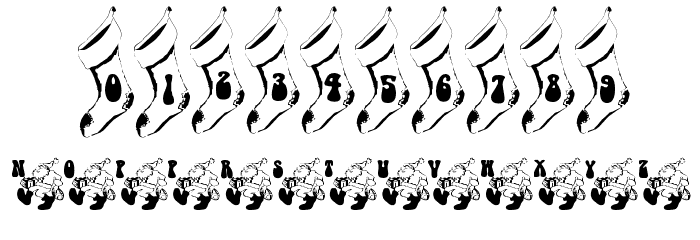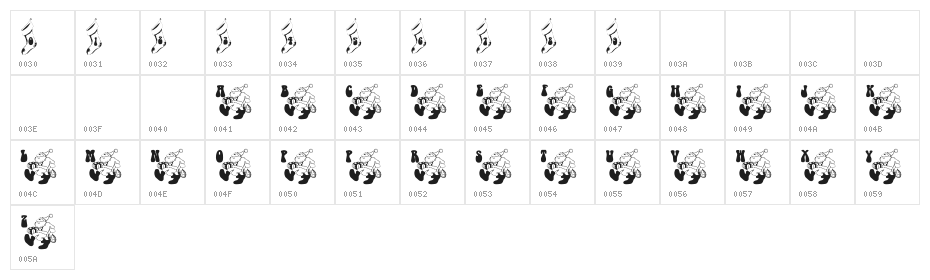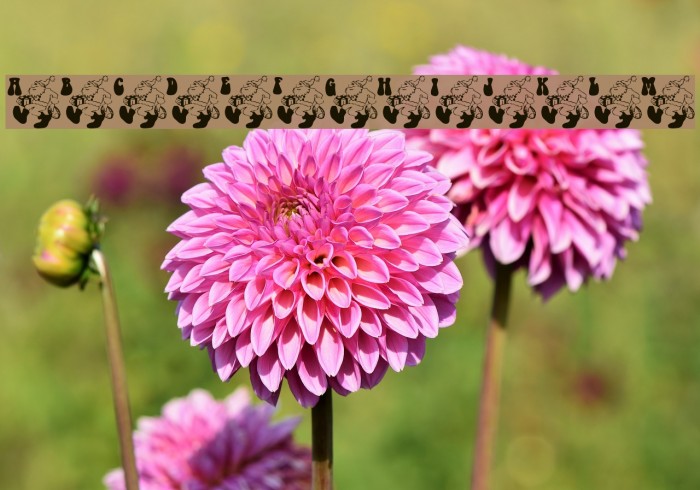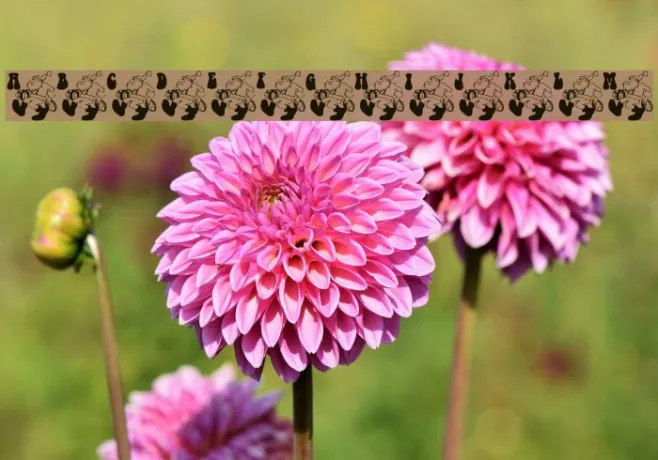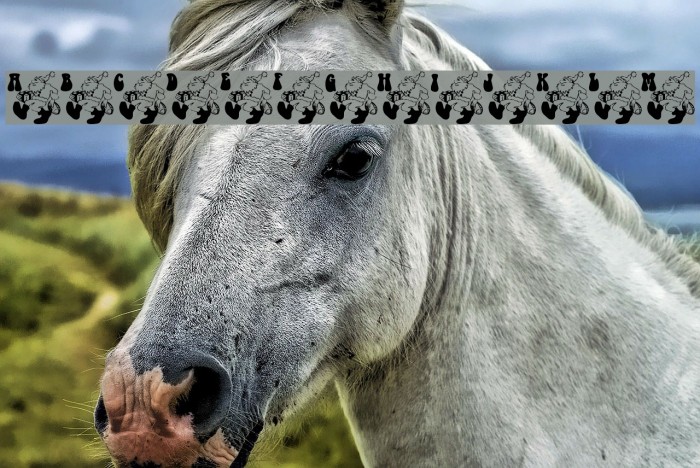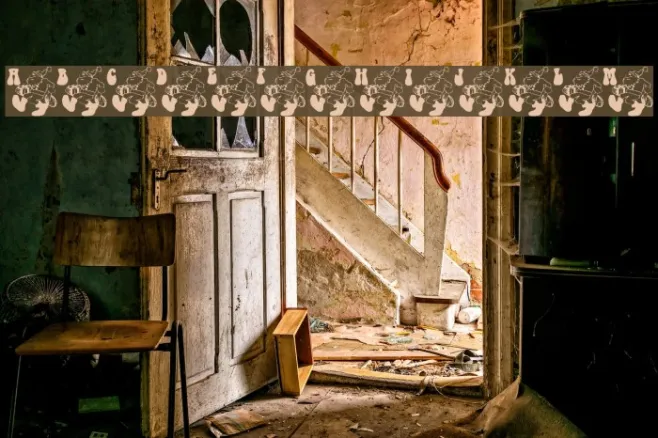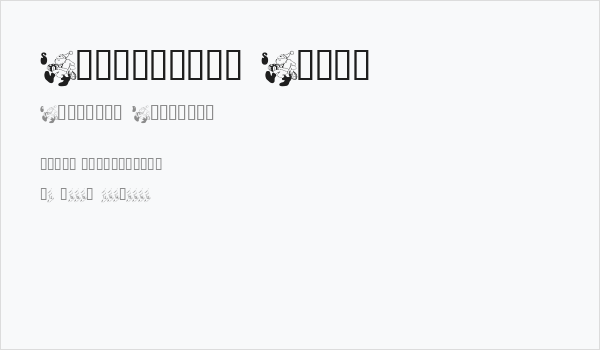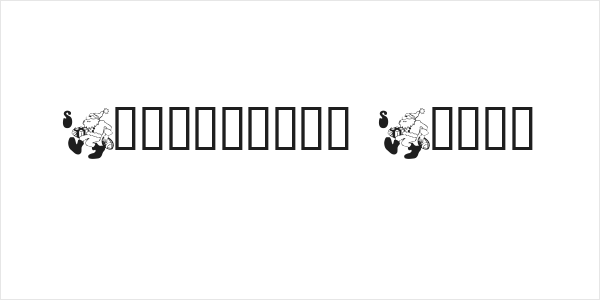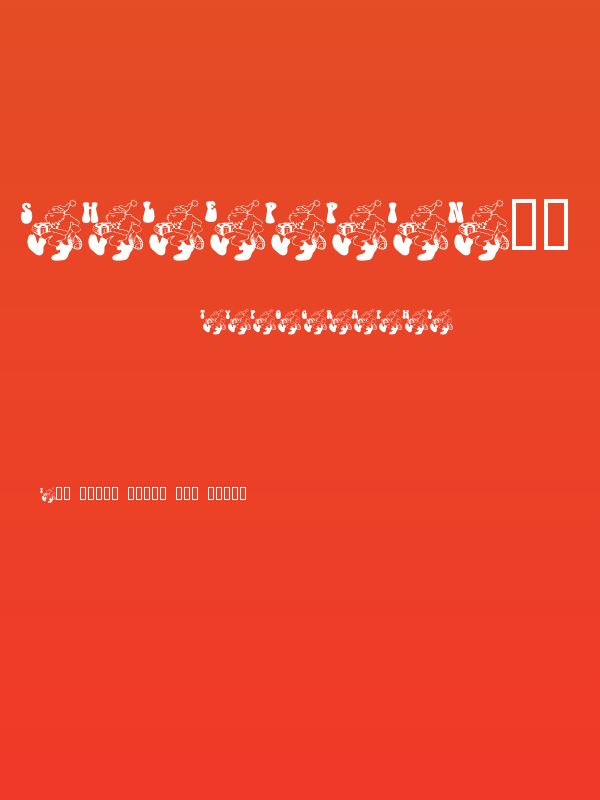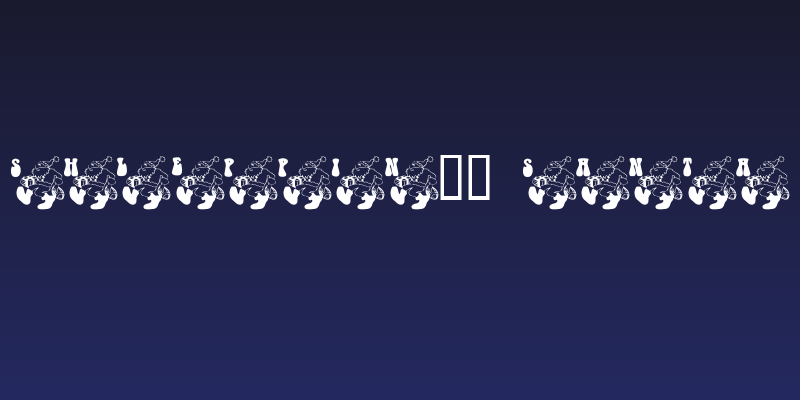
Shleppin' Santa Font
Shleppin' Santa Description
This playful and festive font features each character adorned with a whimsical Santa Claus illustration. The letters are bold and decorative, capturing the joyful spirit of the holiday season. The uppercase and lowercase letters are consistent in style, with Santa depicted in various playful poses. The numbers are creatively integrated into Christmas stockings, adding a unique touch to the font. This design is perfect for holiday-themed projects, offering a cheerful and engaging visual appeal. The font's decorative nature makes it ideal for capturing attention and spreading holiday cheer.
| Overall Style | Festive, Playful, Decorative |
| Use Case | Headlines, Logos, Holiday-themed designs |
| Proposed Projects | Ideal for holiday cards, festive banners, Christmas-themed posters, and playful invitations. |